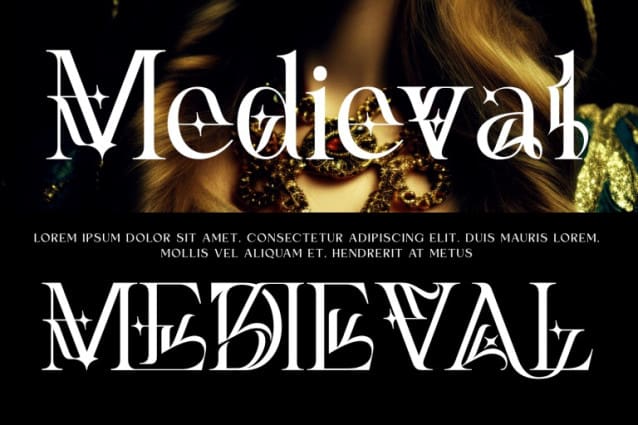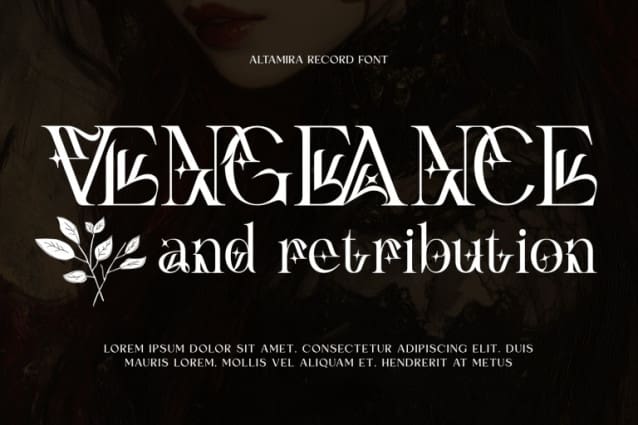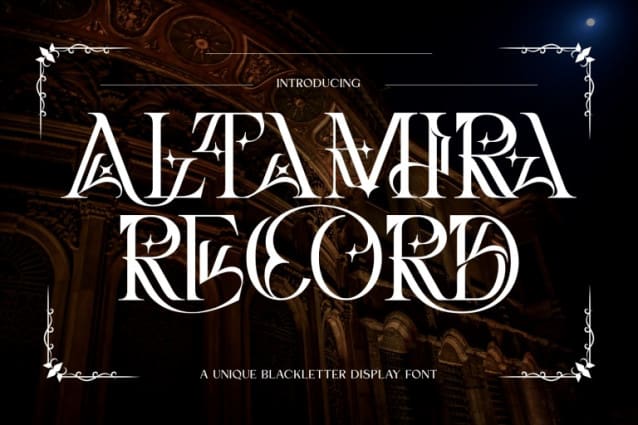
Altamira Record Font
Altamira Record Font is a luxurious decorative serif typeface inspired by Baroque and Rococo artistry. It features elegant high-contrast letterforms with ornate strokes, pointed terminals, and star-shaped internal cutouts that add a sparkling, sophisticated touch. The font combines classic serif structure with ornamental detailing, giving it a regal and theatrical aesthetic. Its tall proportions and curved intersections create a sense of refinement and motion, perfect for designs that require elegance and visual impact — such as album covers, high-fashion branding, editorial headlines, or luxury packaging.
🔤Font Features:
Uppercase & Lowercase Letters
~100 Special Ligatures
Accented Characters for multilingual support
Alternates and ornamental glyph variations
🔤About 100 ligatures combined with Stylistic Alternates Font:
AC AD AL AN AR AS AT AU AV BE CA CE CH CO CT DE DI EA EC ED EE EL EM EN EP ER ES ET FE FO FR GE HA HE HI HO IE IC IL IN IO IR IS IT JU KE LA LE LI LL LO LY MA ME MI NC ND NE NG NO NT NS OC OF OM ON OO OP OR OT OU OW PA PR RA RD RE RI RO RS RT SE SH SI SO SS ST TA TE TH TI TO TR TT UM UN UR VE WI WO